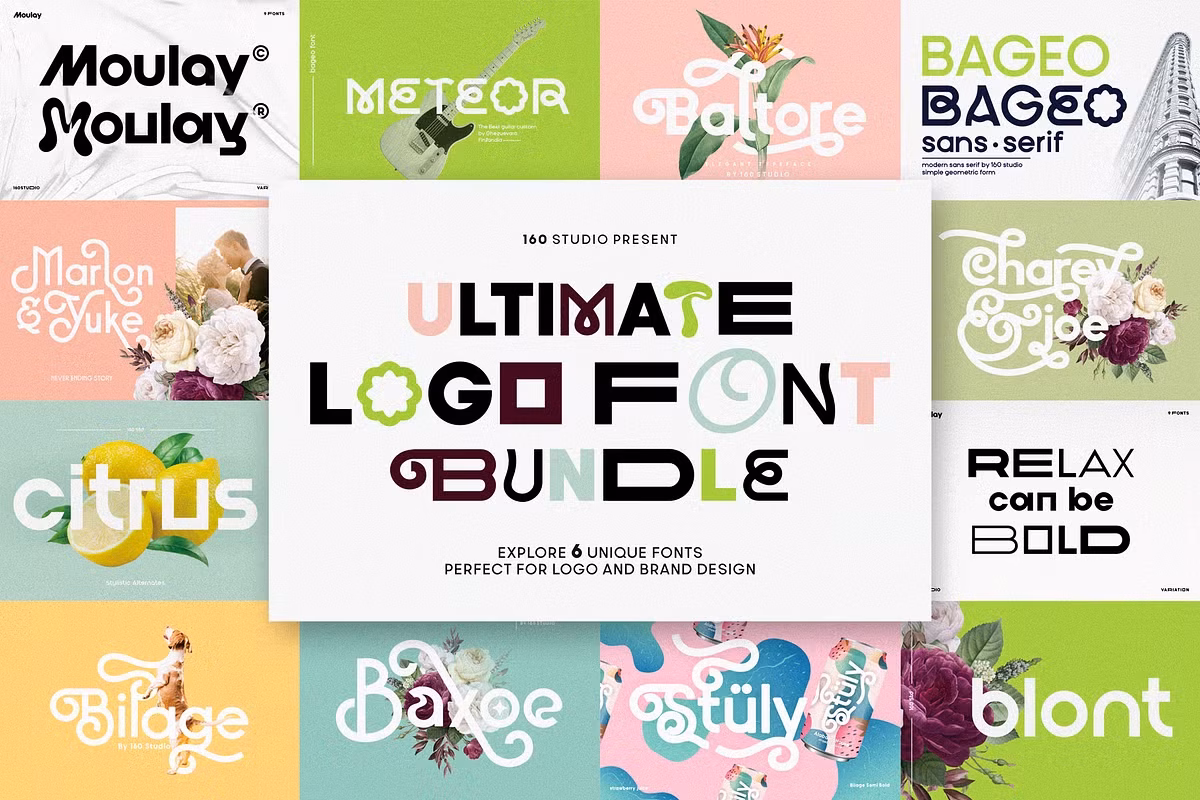
Ultimate Logo Font Bundle Free Download is a powerhouse collection of premium typefaces tailored specifically for crafting standout logos and brand identities. Featuring a diverse mix of modern serifs, elegant scripts, bold sans serifs, and artistic display fonts, this bundle is ideal for designers seeking versatility and impact across various industries.
Ultimate Logo Font Bundle Free Download gives you everything you need to build stylish, professional logos for fashion brands, tech startups, boutiques, influencers, and more. With carefully curated styles and built-in design flexibility, this bundle helps elevate any creative project. Download it today and supercharge your branding work with the ultimate font toolkit.